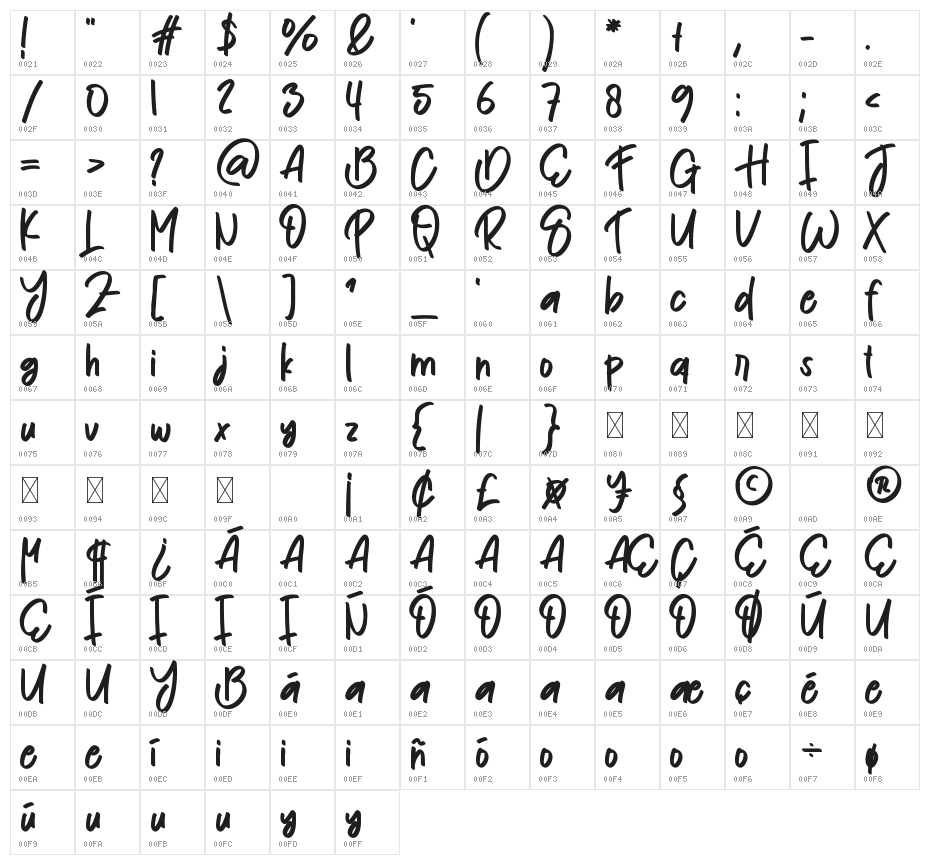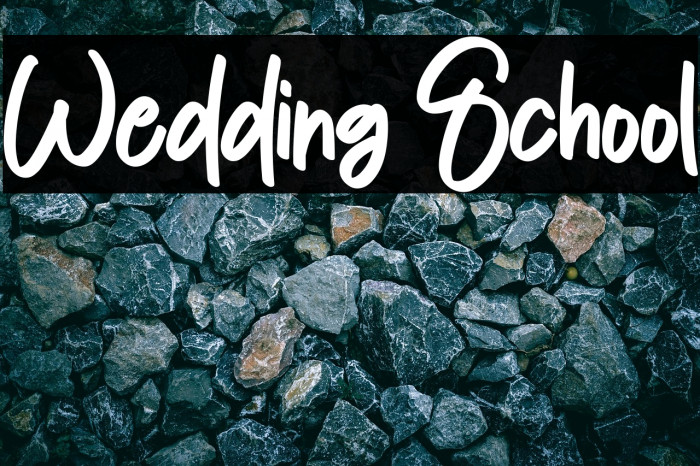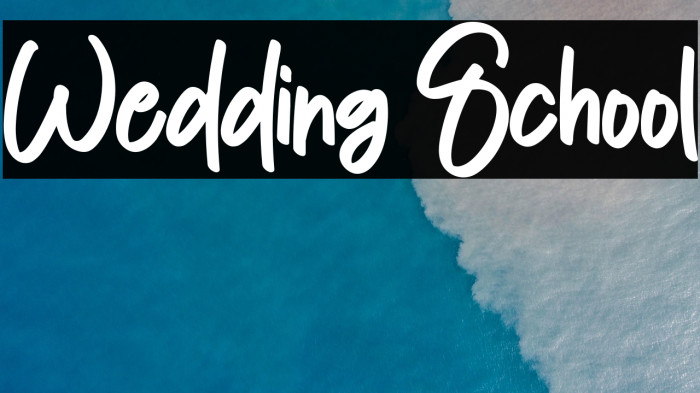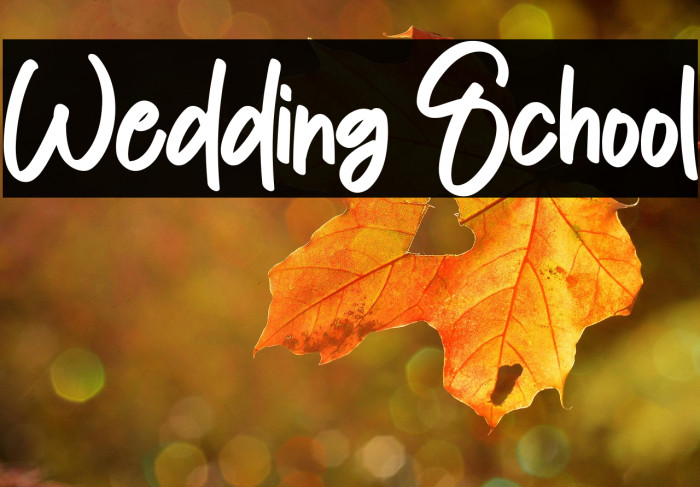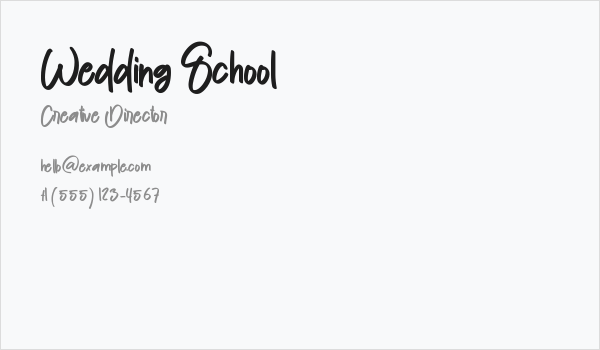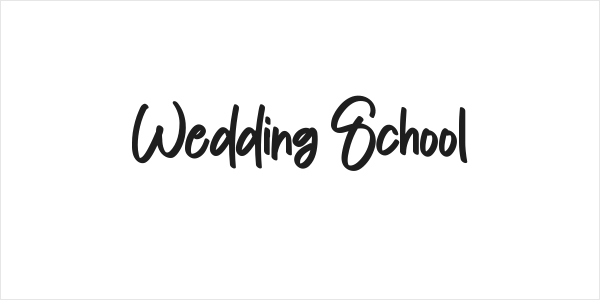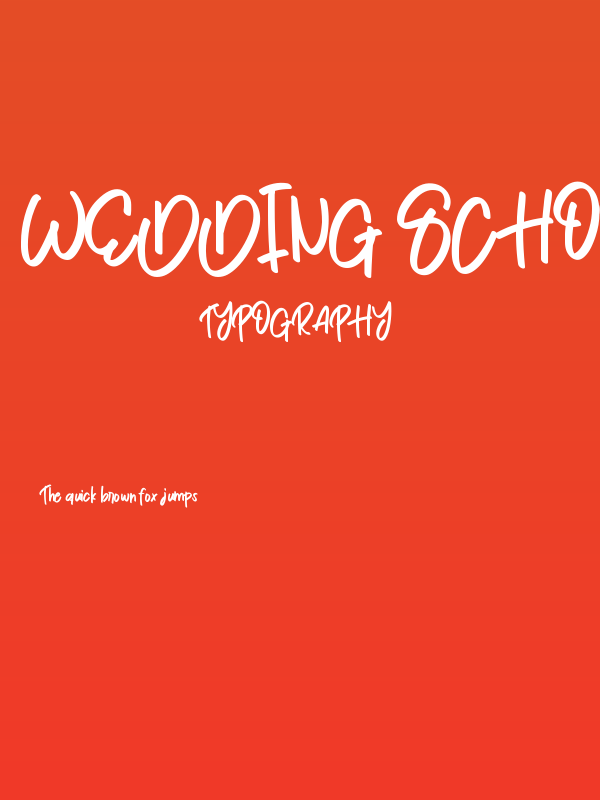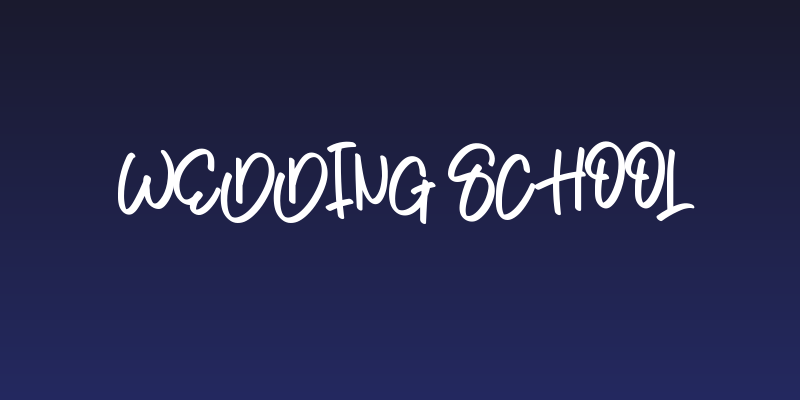
Wedding School Font
This font exudes a playful and energetic vibe, characterized by its handwritten style and bold strokes. The uppercase letters are tall and slightly narrow, with a casual flair that suggests movement and spontaneity. The lowercase letters maintain the same lively spirit, with a slightly more compact form. Numbers and special characters are consistent with the overall style, ensuring a cohesive look. The font's informal and friendly appearance makes it ideal for projects that require a personal touch.
Overall StylePlayful
Use CaseLogos, Invitations, Greeting Cards
Proposed ProjectsIdeal for wedding invitations, school projects, greeting cards, and playful branding.